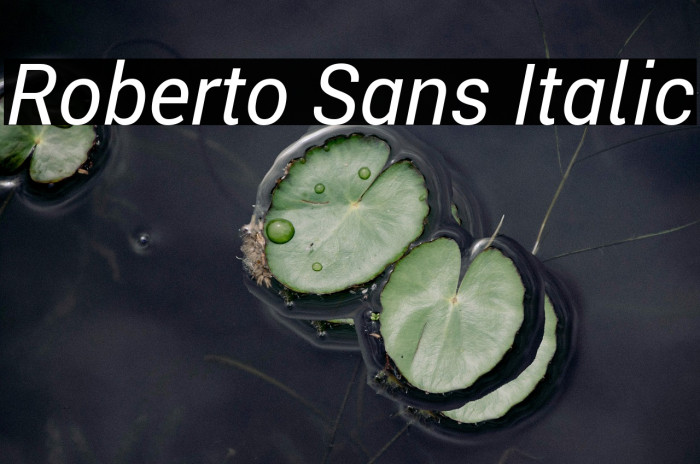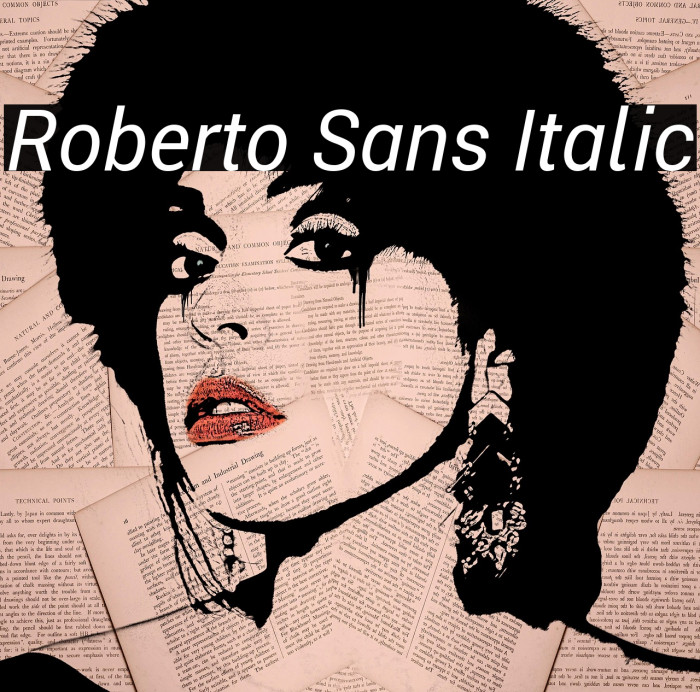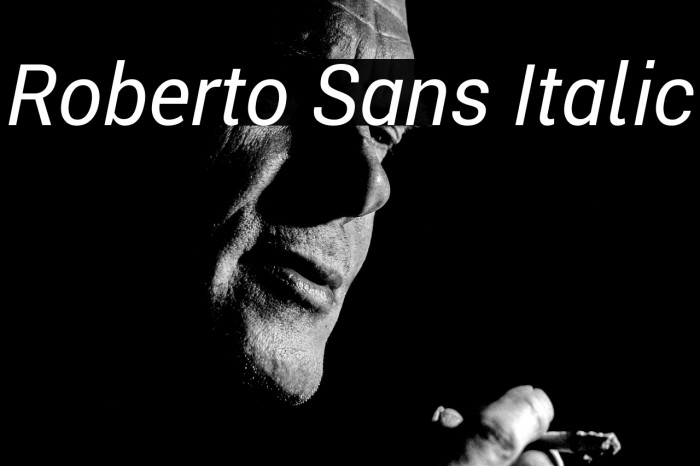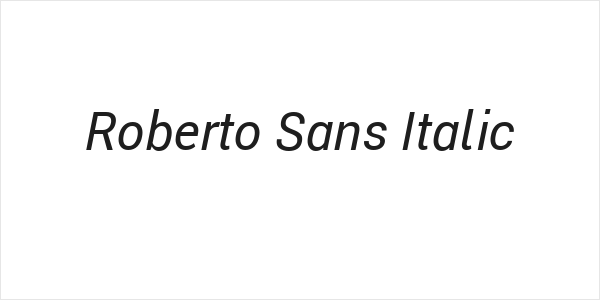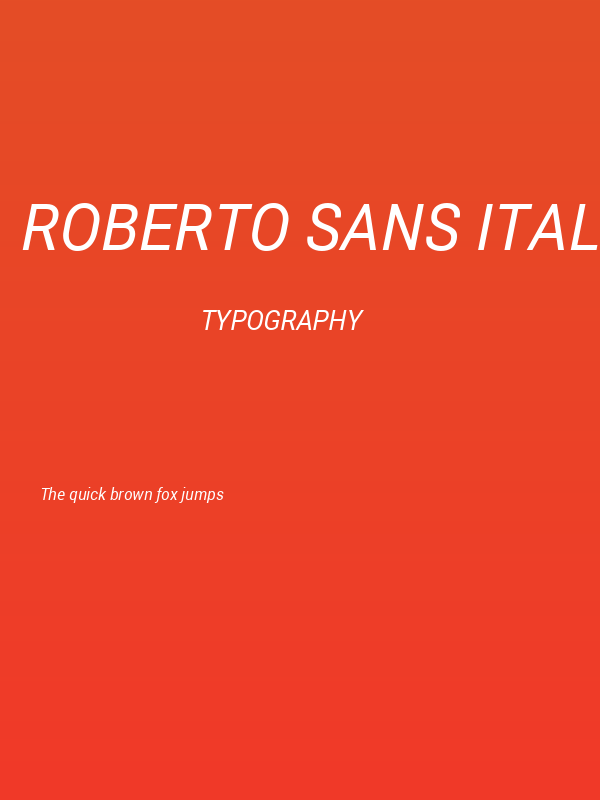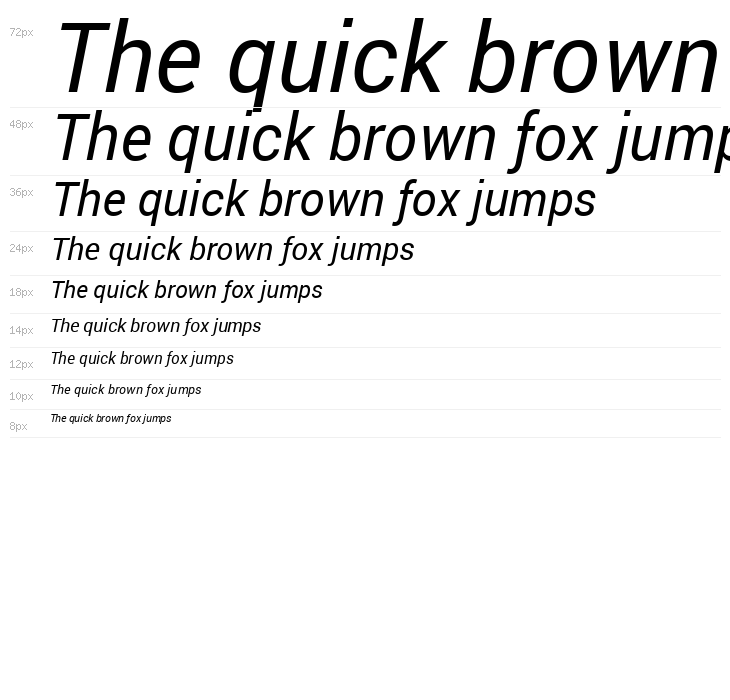
Roberto Sans Italic Font
Roberto Sans Italic Description
This font features a clean and modern sans-serif style with a slight italic slant, providing a sense of motion and elegance. The characters are well-proportioned, with a consistent stroke width that offers a balanced and harmonious appearance. The uppercase and lowercase letters are distinct and easy to read, making it suitable for both display and text purposes. The numerals are clear and straightforward, while the special characters maintain the same sleek design. Overall, the font exudes a contemporary and professional vibe, ideal for various design applications.
| Proposed Projects | Ideal for branding, editorial design, websites, and corporate materials. |